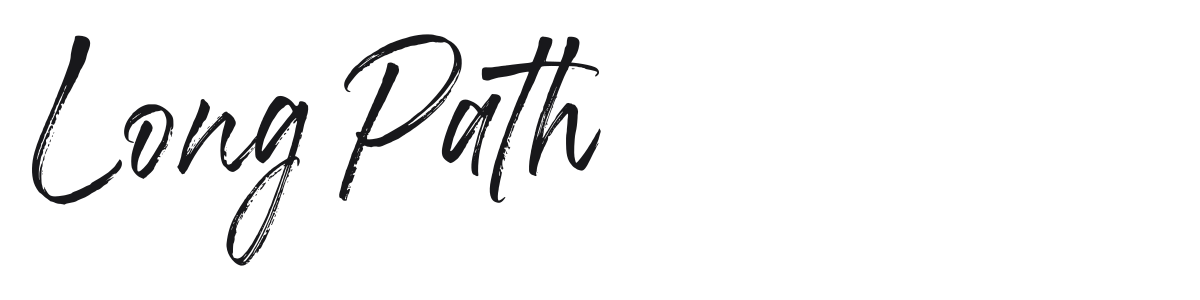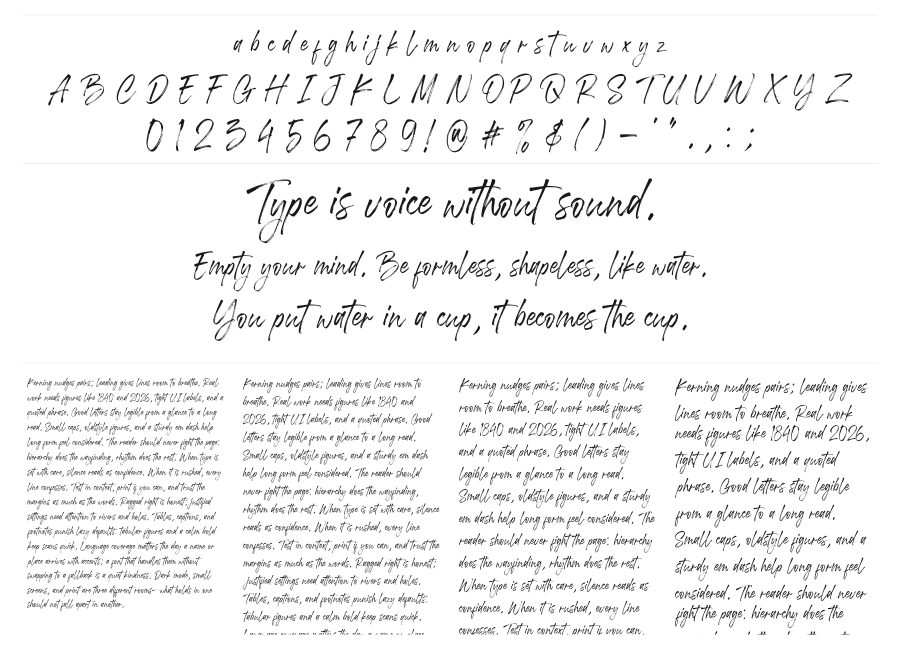
Long Path
Long Path is a rough brush script with the energy of fast, gestural hand-lettering. Heavy downstrokes break into dry-brush texture while the thin upstrokes trail off like ink drying on the bristle. That contrast between bold and wispy gives it a natural rawness that suits editorial headlines, product packaging, and identity work that wants a handcrafted feel.